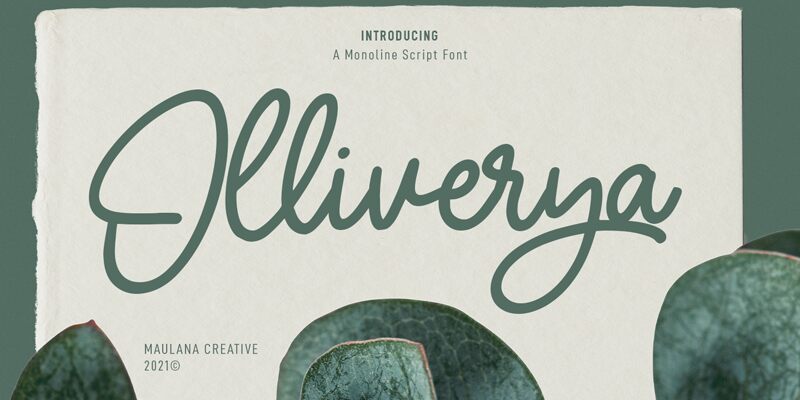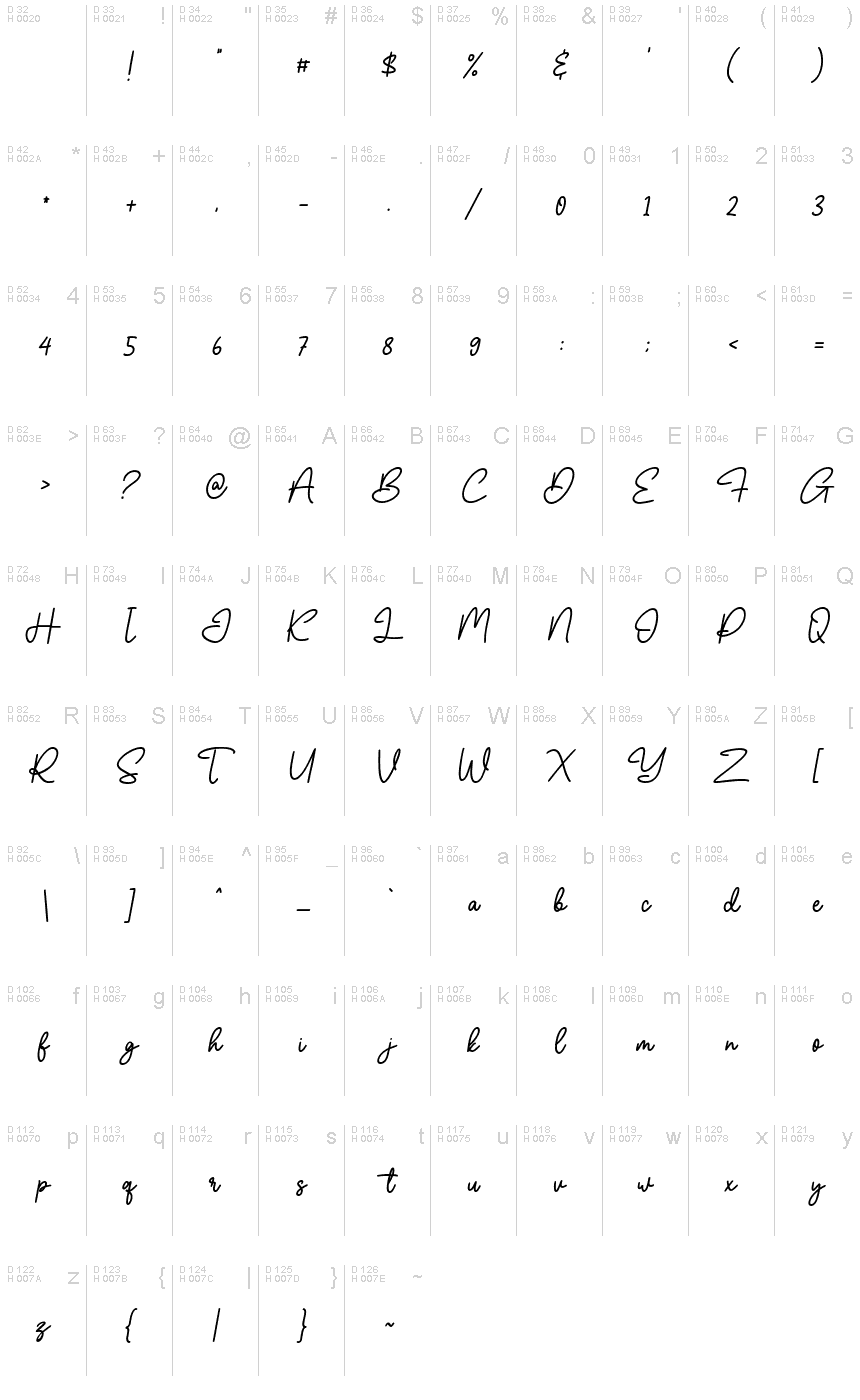
Olliverya
Olliverya, the latest creation from Maulana Creative, is a stunning handwritten font that exudes elegance and grace. With its semi-light weight, this font is perfect for projects that require a touch of sophistication without overpowering the overall design. Whether it's wedding invitations, greeting cards or book covers, Olliverya adds a personal and charming touch to any project. Its handwritten style makes it ideal for projects that require a personal and welcoming feel such as blogs or social media posts. Embrace the beauty of Olliverya and elevate your designs to new heights!